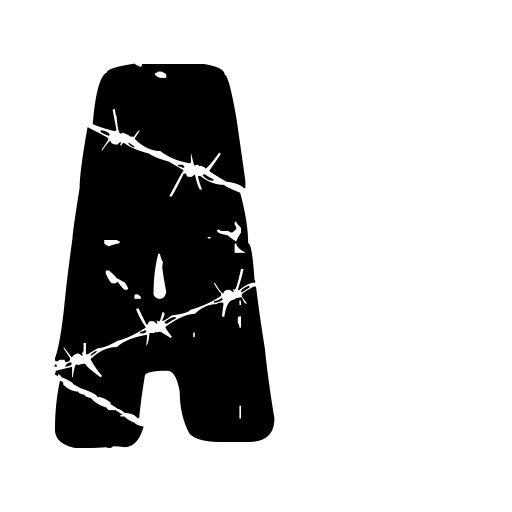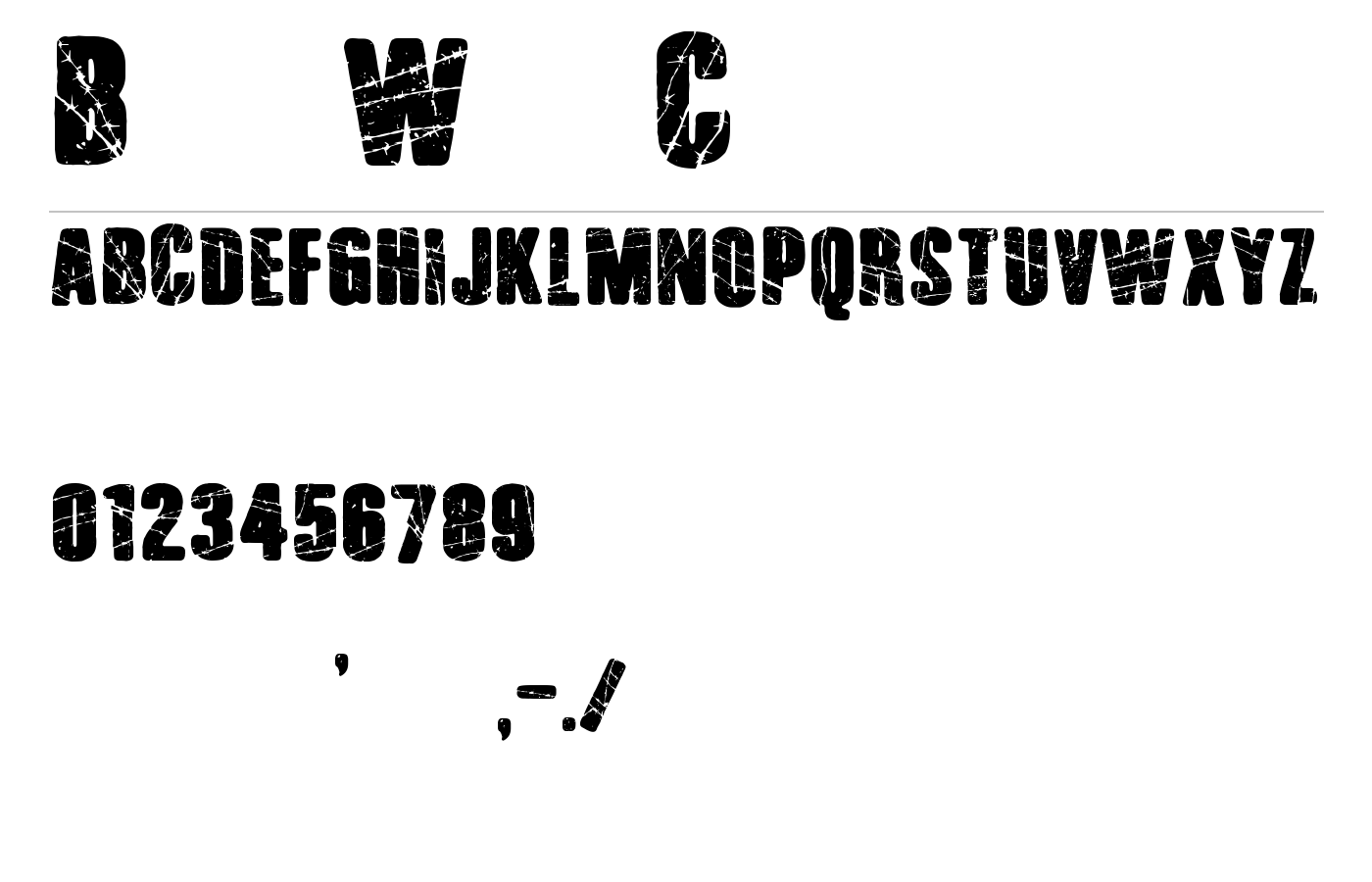
Barb Wire Club is a bold, condensed sans serif font with a distressed texture resembling barbed wire scratches, giving it a rugged and edgy feel. Its heavy weight and tight spacing make it ideal for striking headlines, logos, and posters where a tough, rebellious, or industrial vibe is needed. This font works best in designs aiming for a gritty, urban, or vintage-inspired look.
Barb Wire Club Font
About Barb Wire Club Font
| Font family | Barb Wire Club Font |
| Designer | IMAGEX |